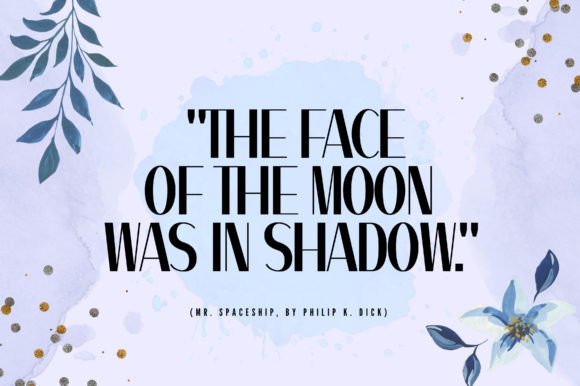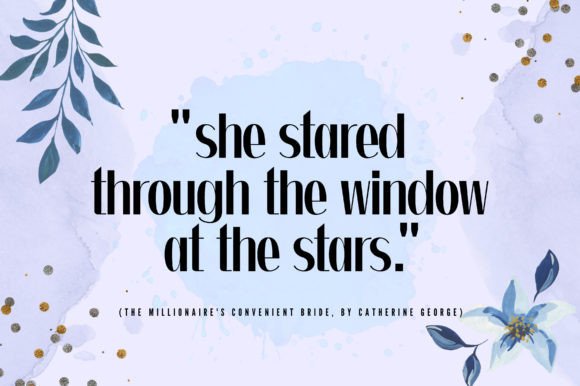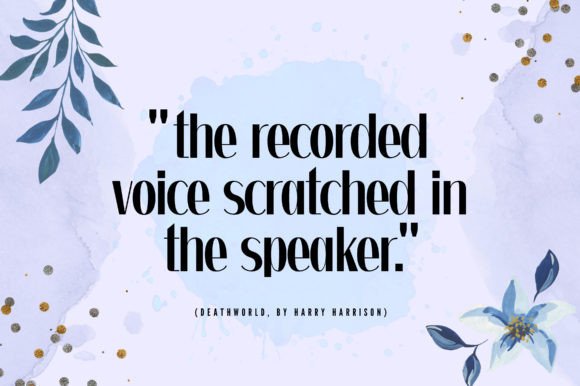
Introduction to Lacinia Font
As you sit in front of your design software, staring at a blank canvas, you feel the pressure to create something truly unique. The blank space seems to scream for attention, and your mind starts racing with ideas. But what if you had the perfect design resource to take your creative project to the next level? Enter the Lacinia Font, a stylish and elegant sans serif typeface that’s about to revolutionize the way you design.
With its fashionable character, the Lacinia Font is a valuable asset for any designer looking to add a touch of sophistication to their work. Whether you’re designing packaging, posters, magazine covers, or fashion designs, this font is sure to make your creations stand out. And the best part? It’s a free download, available for anyone to use, making it an invaluable resource for designers of all levels.
Key Features of Lacinia Font
- Unique characteristics include a modern, elegant style and a wide range of customization options.
- Perfect for designers, artists, and creatives working on a variety of projects, from graphics to web design.
Honest Review: Lacinia Font
I recently stumbled upon the Lacinia Font and was excited to give it a try. As a designer, I’m always on the lookout for high-quality fonts that can elevate my creative project. In this review, I’ll share my honest thoughts on what works well and what could be improved.
- The Lacinia Font is incredibly versatile and can be used for a wide range of creative projects, from headings to body text.
- The font is highly customizable, allowing me to adjust the size, color, and style to fit my design needs.
- The font may not be suitable for projects that require a very large font size, as it can become pixelated and lose its quality.
- The font is not as extensive as some other font families, with only a limited number of styles and weights available.
Overall, I’m impressed with the Lacinia Font and would definitely recommend it to fellow designers. While it has some limitations, its versatility and high quality make it a valuable design resource. With a little creativity, I’m sure I can work around its limitations and achieve some amazing results with this font.
Lacinia Font
Tips for Getting the Most Out of Lacinia Font
To get the most out of the Lacinia Font, use it in combination with a transparent background to create a seamless design. This font is also ideal for use in creative projects that require a high-quality, design resource.
The Lacinia Font is commonly used in branding, graphic design, and digital marketing projects. Its versatility and high-quality design make it an excellent choice for a range of creative applications.